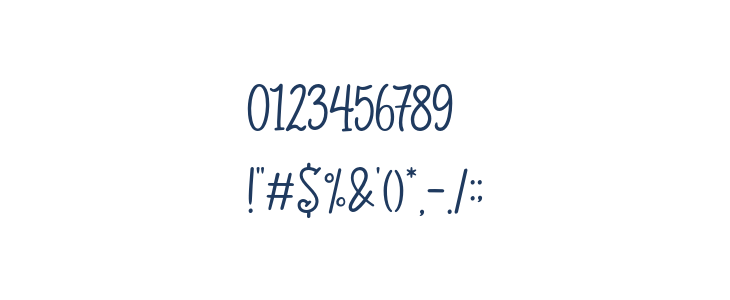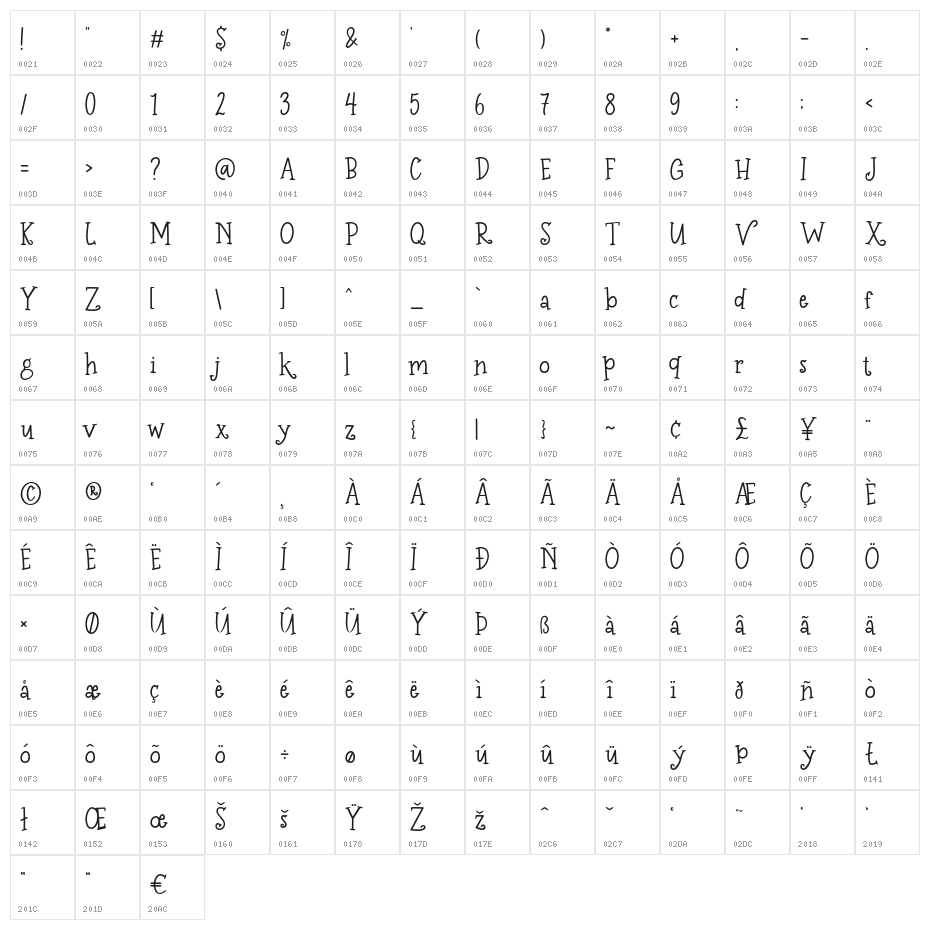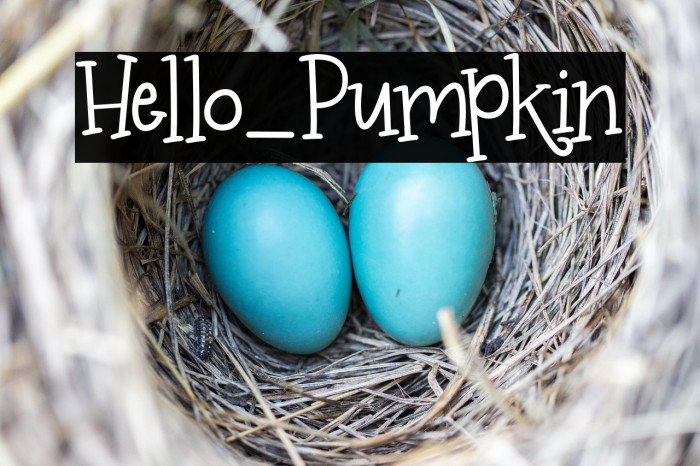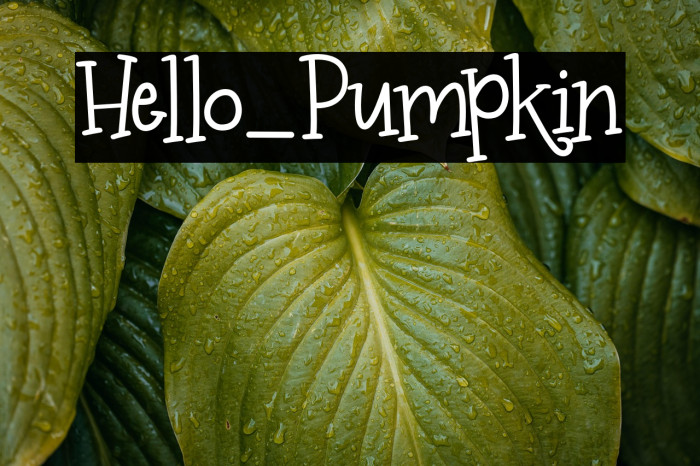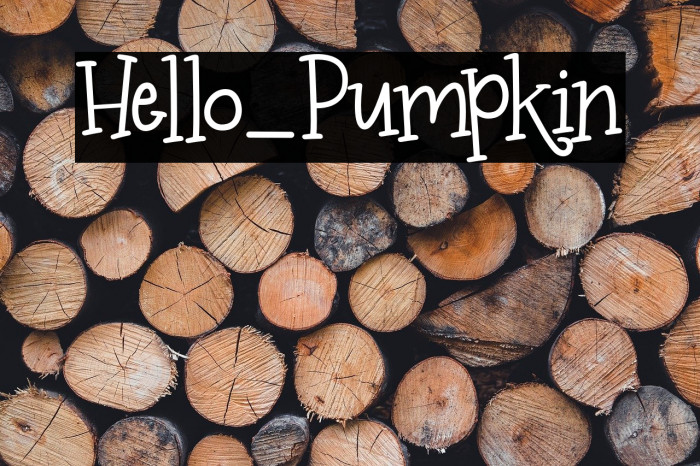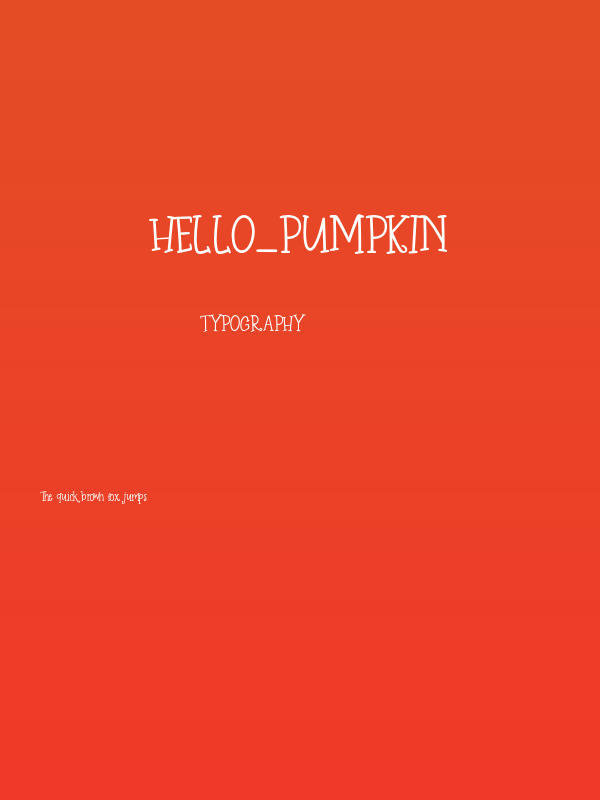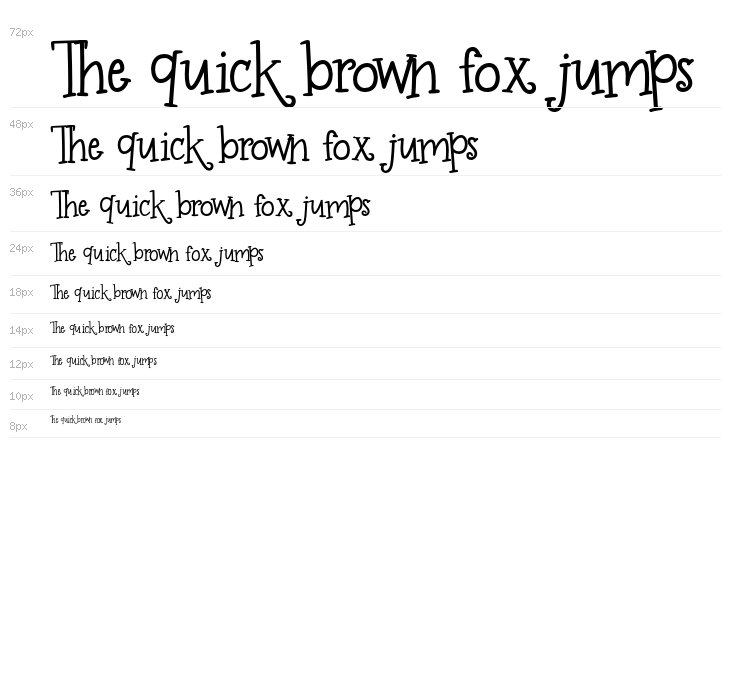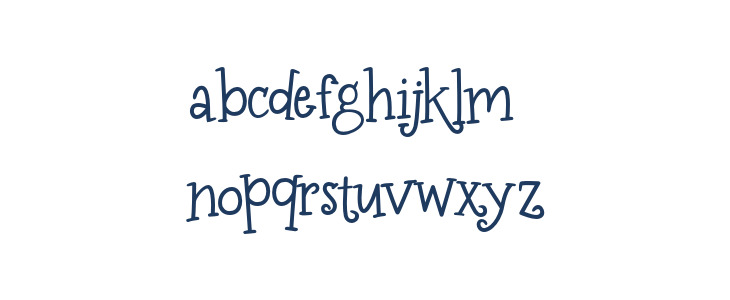
Hello_Pumpkin Font
Hello_Pumpkin Description
This playful and whimsical font features a handwritten style with a touch of elegance. The letters are slightly irregular, adding a charming and casual feel. The uppercase characters are tall and narrow, with unique curls and loops that give them a distinctive personality. The lowercase letters maintain a consistent style, complementing the uppercase with their rounded forms and subtle variations. Numbers and special characters are crafted with the same playful spirit, ensuring a cohesive look across all text. This font is perfect for projects that require a friendly and approachable aesthetic.
| Overall Style | Playful |
| Use Case | Headlines, Logos, Invitations |
| Proposed Projects | Ideal for greeting cards, children's books, playful branding, and social media graphics. |